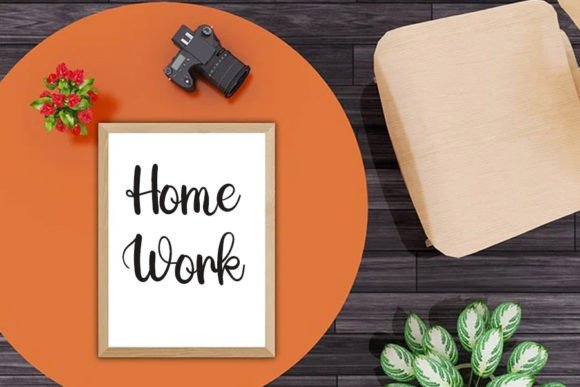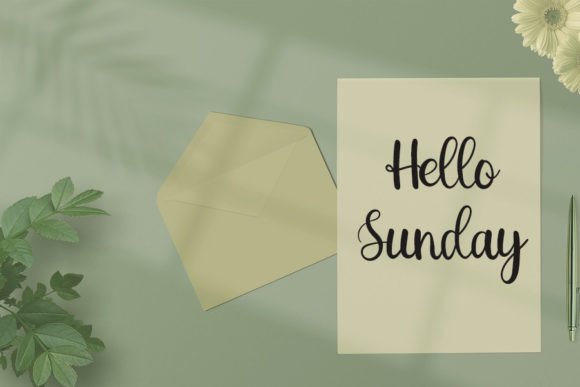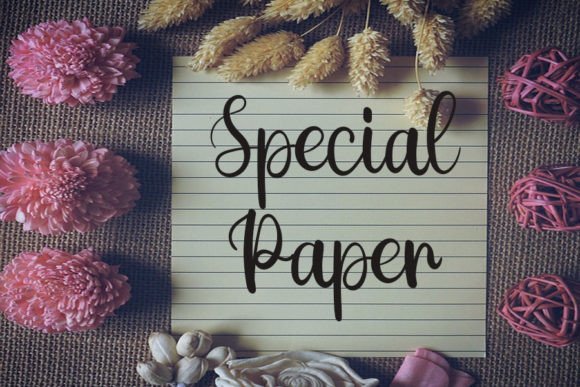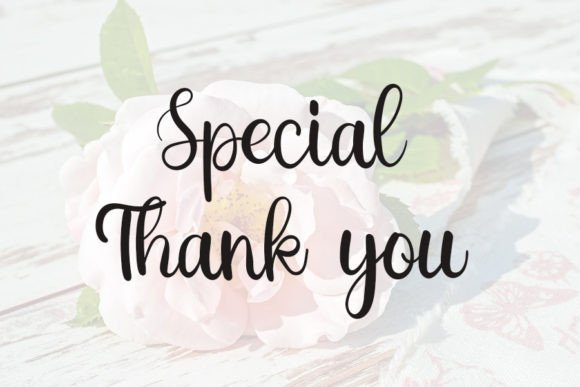
Discover the Elegance of Hebby Font: A Timeless Handwritten Script
Are you on the hunt for a font that exudes elegance and sophistication? Look no further than Hebby Font, a beautiful, flowing handwritten script that’s perfect for adding a touch of refinement to your favorite projects. With its incredibly distinct and timeless style, Hebby is sure to capture your heart and inspire your creativity.
The Characteristics of Hebby Font
Hebby Font is a carefully crafted handwritten script that’s designed to evoke a sense of luxury and refinement. Its elegant touch is evident in every curve and line, making it the perfect choice for designers and crafters who want to add a touch of sophistication to their work. Whether you’re creating a logo, a poster, or a social media graphic, Hebby Font is sure to make a lasting impression.
What Makes Hebby Font So Special?
So, what sets Hebby Font apart from other fonts? Here are just a few of its standout features:
- Unique and distinctive style: Hebby Font has a one-of-a-kind look that’s sure to grab attention and leave a lasting impression.
- Elegant and refined: With its flowing curves and sophisticated lines, Hebby Font is the perfect choice for projects that require a touch of luxury.
- Timeless appeal: Unlike trendy fonts that quickly go out of style, Hebby Font has a timeless quality that ensures it will remain relevant for years to come.
- Versatile: Whether you’re creating a logo, a poster, or a social media graphic, Hebby Font is versatile enough to adapt to any design style.
How to Use Hebby Font in Your Designs
Hebby Font is incredibly easy to use, even for designers who are new to working with handwritten scripts. Here are a few tips for incorporating Hebby Font into your designs:
- Pair it with bold fonts: Hebby Font looks stunning when paired with bold, sans-serif fonts that provide a striking contrast.
- Use it for headlines and titles: Hebby Font is perfect for creating eye-catching headlines and titles that grab attention.
- Add a personal touch: Hebby Font’s elegant, handwritten style makes it perfect for adding a personal touch to your designs.
Hebby Font for Crafters and DIY Enthusiasts
Hebby Font isn’t just for professional designers – it’s also perfect for crafters and DIY enthusiasts who want to add a touch of elegance to their projects. Whether you’re creating handmade cards, scrapbooking pages, or DIY signs, Hebby Font is a great choice.
- Handmade cards and invitations: Hebby Font is perfect for creating beautiful, one-of-a-kind handmade cards and invitations.
- Scrapbooking and journaling: Add a touch of elegance to your scrapbooking and journaling projects with Hebby Font.
- DIY signs and decor: Use Hebby Font to create stunning DIY signs and decor for your home or office.
In conclusion, Hebby Font is a beautiful, elegant handwritten script that’s perfect for designers, crafters, and DIY enthusiasts. With its unique and distinctive style, timeless appeal, and versatility, Hebby Font is sure to become a favorite in your design arsenal. So why wait? Fall in love with Hebby Font and start creating spectacular designs today!